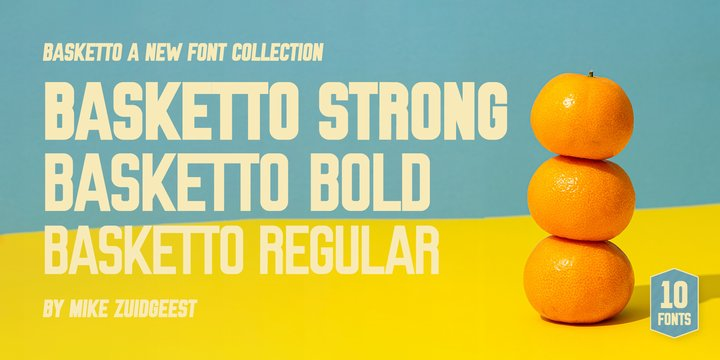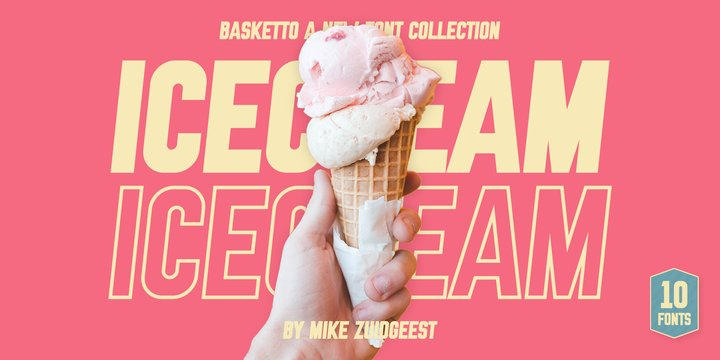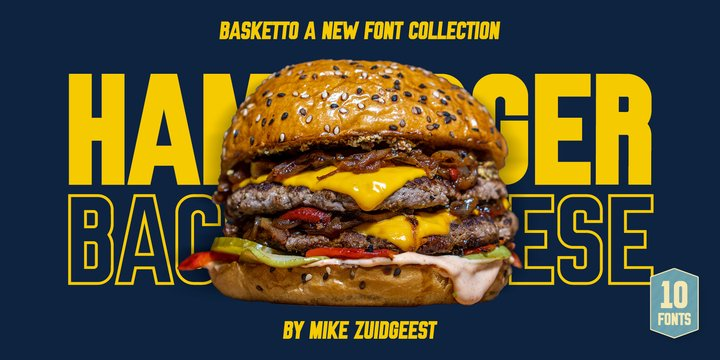
Basketto Font Family
Basketto Font FamilyBasketto is a carefully crafted, handmade sans serif font. Completely built from scratch in Adobe Illustrator. The glyphs are nice and bold, with sharp corners. Use Basketto for your product packaging, out of home adverting, food truck posters, festivals or the travel industry. This is my official font debut, I would love to hear from you to see my font on your product!